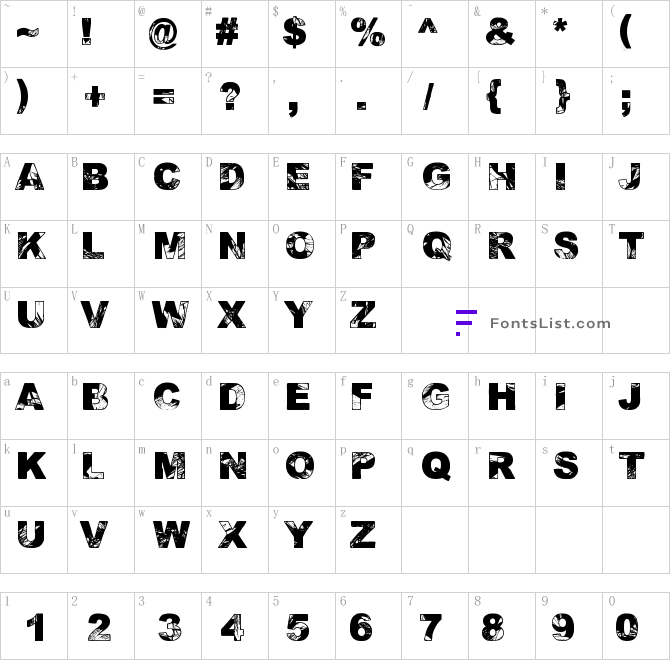
- Font Name:Adieresis, Odieresis & Aring 2
Adieresis-Odieresis-Aring-2.ttf is a very beautiful artistic font, Adieresis-Odieresis-Aring-2.ttf is widely used in the design and printing of various books and pictures,Adieresis-Odieresis-Aring-2.ttf has a strong visual impact,Adieresis-Odieresis-Aring-2.ttf is a commonly used font in newspapers, magazines and books, and is used in posters, e-commerce Poster design, store design, logo design, font design and other fields.Adieresis-Odieresis-Aring-2.